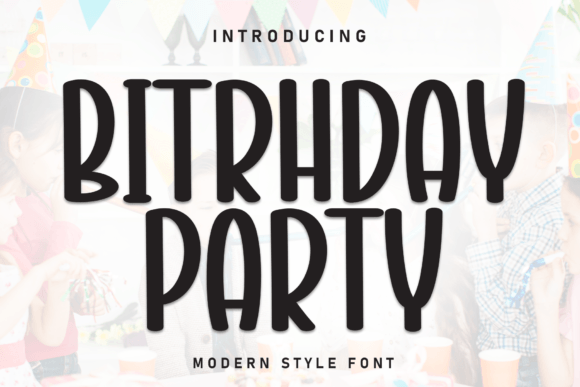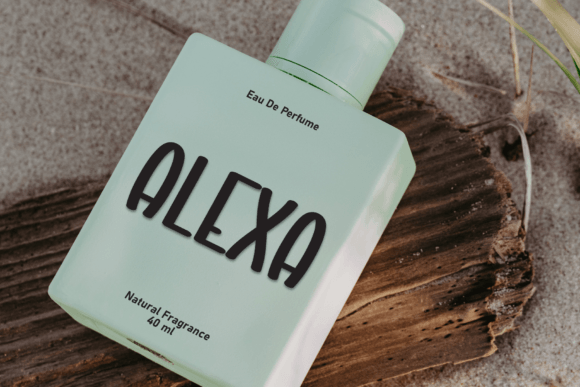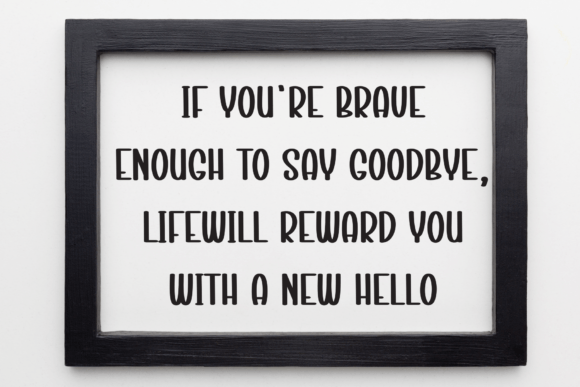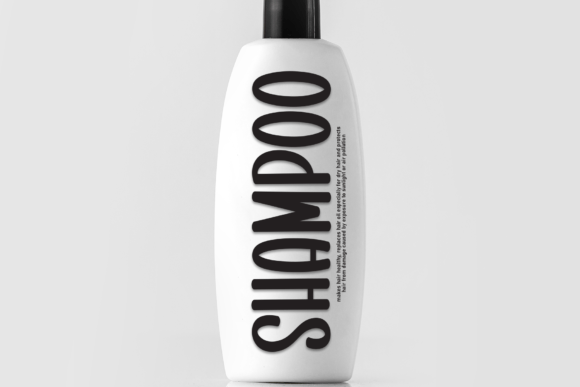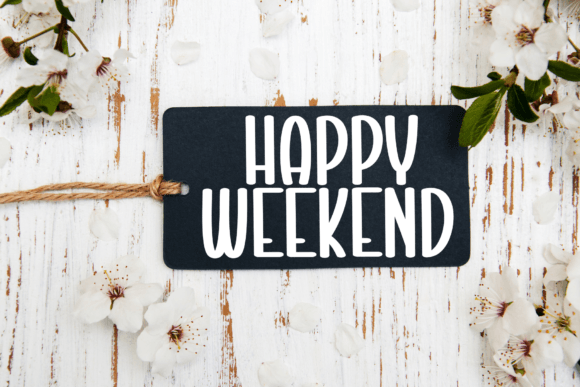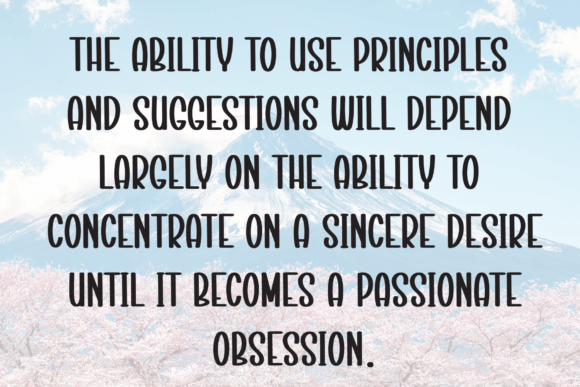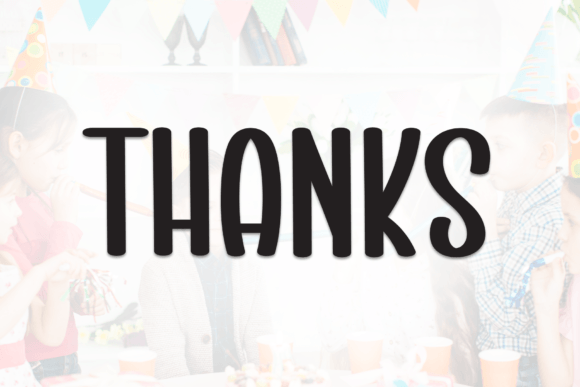
Bring Joy to Your Designs with the Birthday Party Font
Have you ever stared at a blank page, waiting for inspiration to strike? You’re not alone. Sometimes, all it takes is the right font to spark creativity and bring your vision to life. For designers, the perfect font can be the key to unlocking a beautiful and cohesive design. That’s where the Birthday Party Font comes in – a sweet and friendly handwritten font that’s sure to add a touch of warmth to any project.
With its natural and unique style, the Birthday Party Font is incredibly versatile and can be used in a wide range of designs, from invitations and greeting cards to social media graphics and marketing materials. Its friendly and approachable feel makes it perfect for designers who want to add a personal touch to their work. Whether you’re a seasoned pro or just starting out, the Birthday Party Font is a valuable addition to any design toolkit.
Birthday Party Font Key Features
- Font Family: Birthday Party Font is a sans-serif font designed for celebratory and party themes.
- Character Set: Supports a wide range of characters, including Latin, Cyrillic, and Greek alphabets, as well as various symbols and punctuation marks.
- Unique Characteristics: Features a playful, cursive-inspired design with bold lines and rounded edges, making it perfect for creating festive and eye-catching designs.
Birthday Party Font Review
Overall, I think the Birthday Party Font is a fun and playful choice for any celebratory occasion. Here are a few things that work well:
- ✨ Vibrant and energetic feel: The font has a lively, party-like atmosphere that’s perfect for birthday invitations, party decorations, and other celebratory materials.
- ✨ Versatility: The font can be used for various text styles, from bold and playful to cursive and whimsical, making it a great choice for creative projects.
- ✨ Easy to read: Despite its playful nature, the font remains easy to read, even in smaller sizes.
- ⚠️ Limited usage: The font may not be suitable for formal or professional projects, as its playful nature may not convey the right tone.
- ⚠️ Overuse: Using the font too extensively may make the design look cluttered and overwhelming.
Overall, I think the Birthday Party Font is a great choice for projects that require a fun and celebratory feel. While it may have some limitations, its versatility and energetic feel make it a great addition to any designer’s toolkit.
The Birthday Party Font is perfect for creating fun and playful designs for children’s birthday parties, such as invitations, party decorations, and cake toppers.
For maximum impact, use the font in bold and bright colors to match the party theme.
Experiment with different font sizes and styles to create a visually appealing design.
Alternatives to Birthday Party Font
Great Vibes is a beautiful, cursive script font perfect for adding a touch of elegance and sophistication to your designs. It’s ideal for use in wedding invitations, event promotions, and other celebratory materials.
Compared to Birthday Party Font, Great Vibes has a more refined and mature look, making it suitable for upscale events and occasions. It lacks the playful, childish feel of Birthday Party Font, but still conveys a sense of joy and celebration.
Dancing Script is a lively, handwritten font that’s perfect for adding a sense of movement and energy to your designs. It’s ideal for use in party invitations, social media graphics, and other promotional materials.